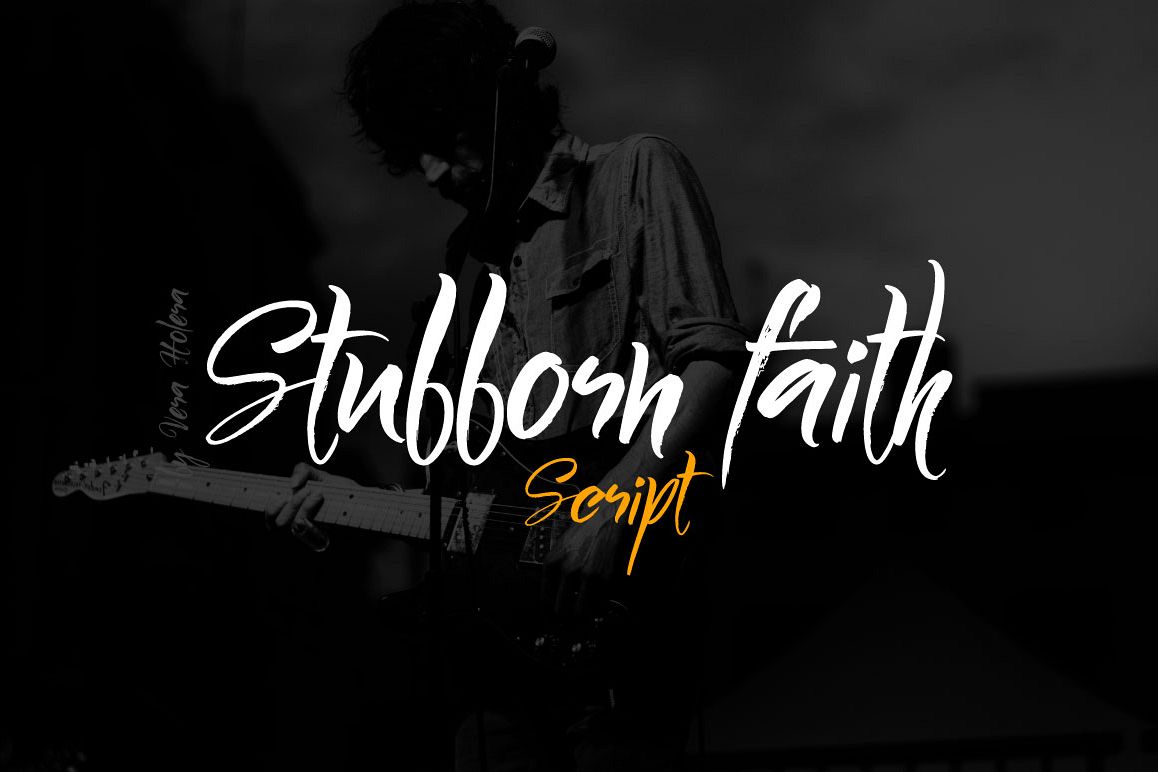
Stubborn Faith Script
About Stubborn Faith
Stubborn Faith is a bright and wayward font. Great for posters, book covers, etcetera
Basic Latin A-Z and a-z
Numbers
Limited Symbols
Basic ligatures